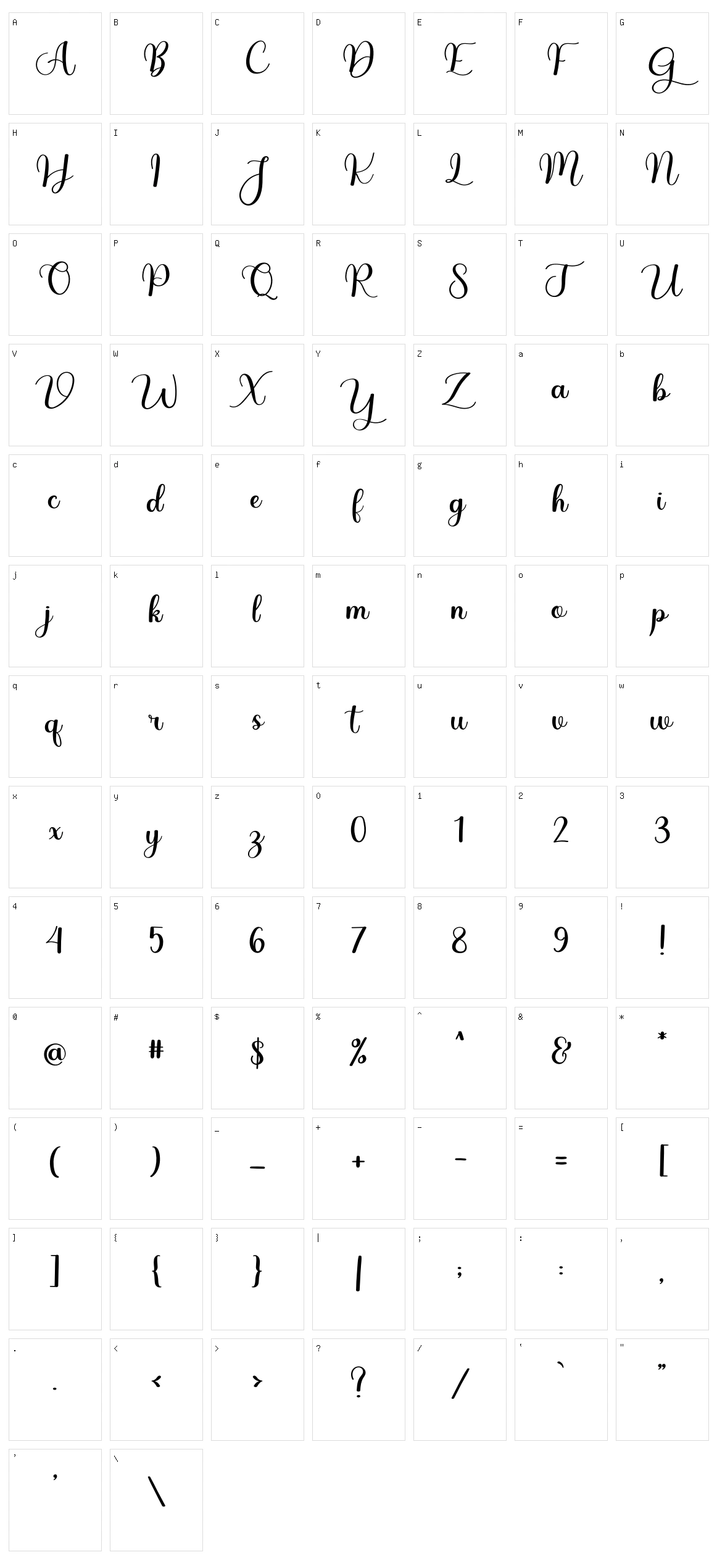
The free font The Winter is carefully designed by Luluk Surotul, showcasing a thoughtful balance of creativity and usability and falls under the Script font style. When you download the ZIP file, it contains only 70.17 KB of font files, making it lightweight and quick to download. Please review the license details below to understand permitted usage and distribution rights. If license information is not available, we recommend using this font for personal projects only or contacting the author directly for commercial usage permissions.